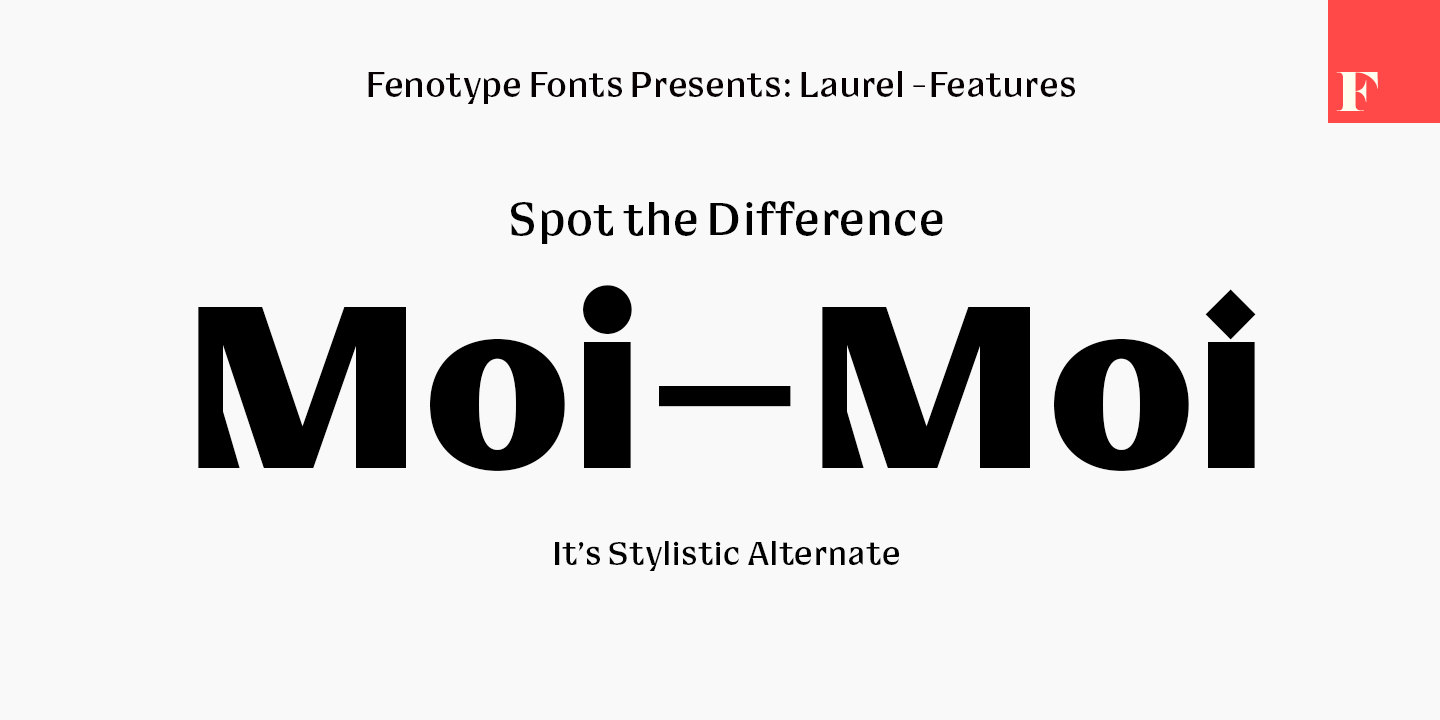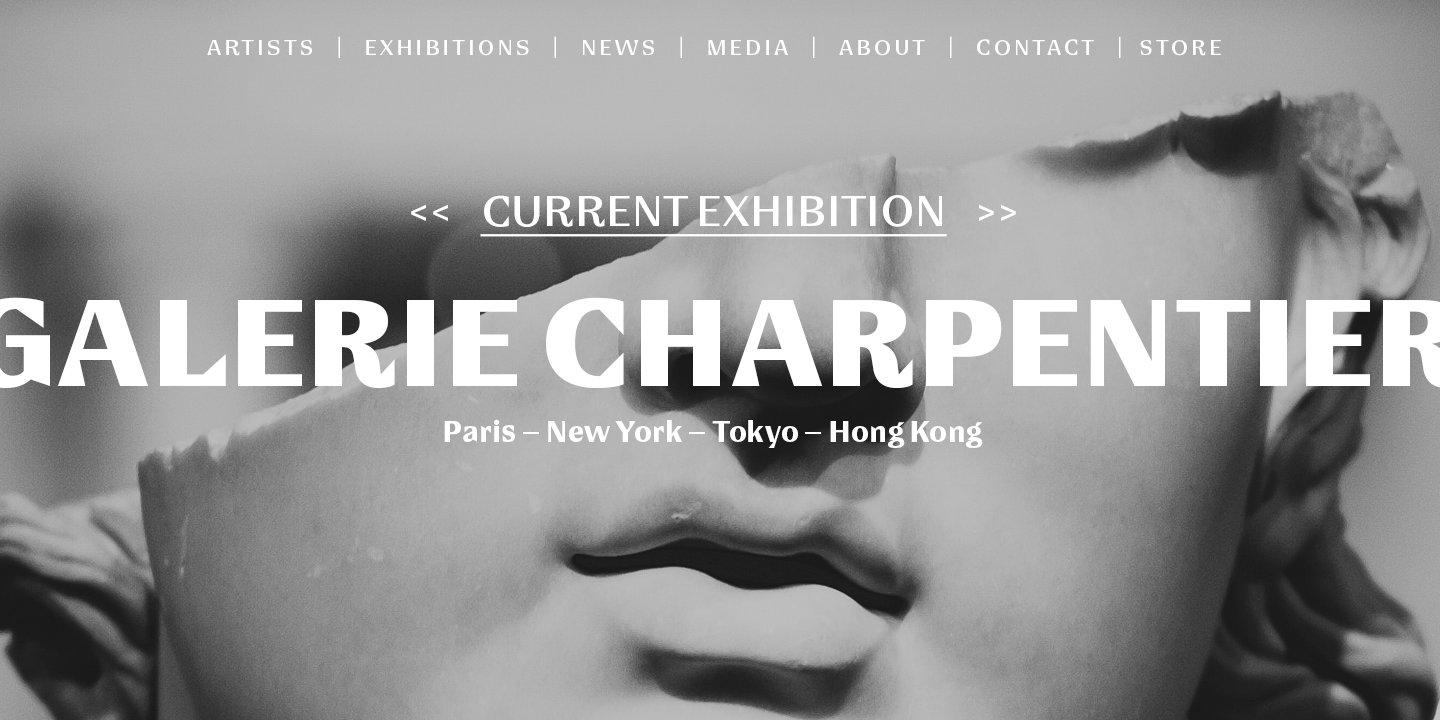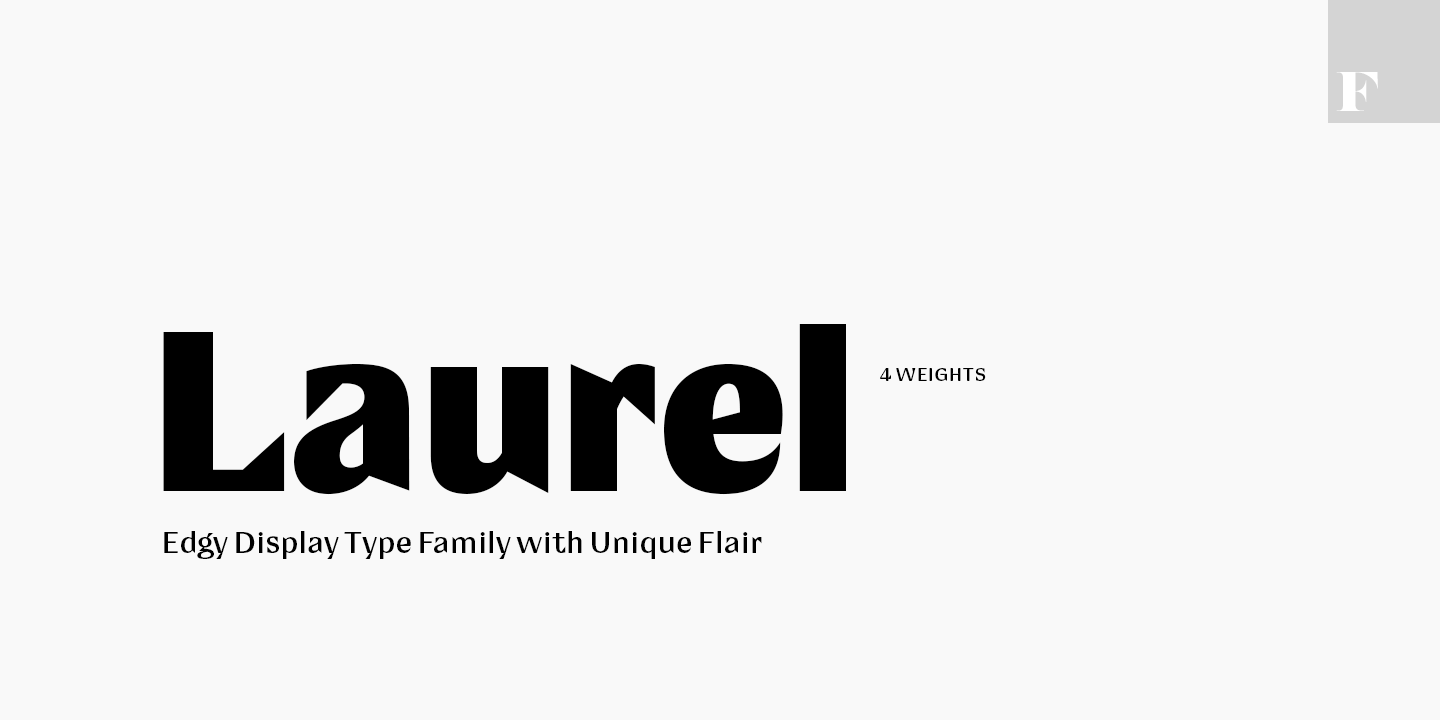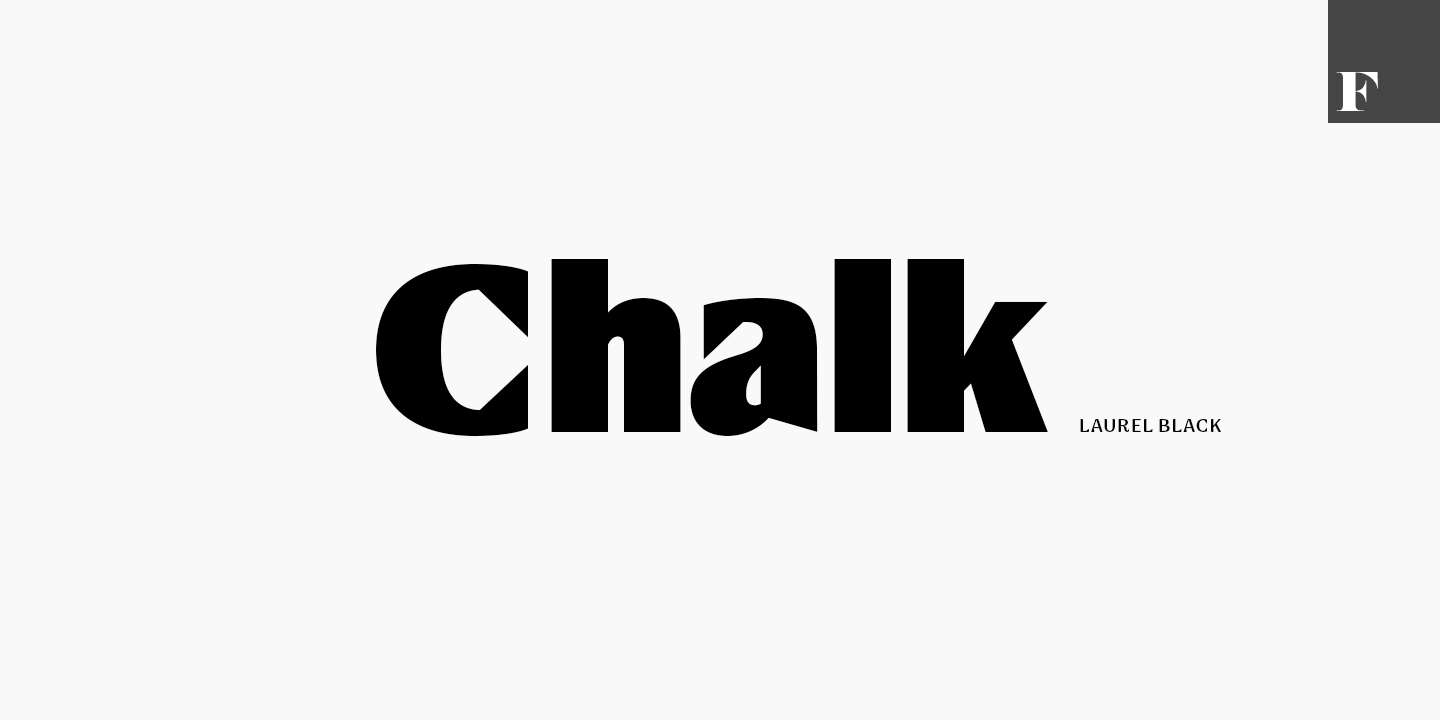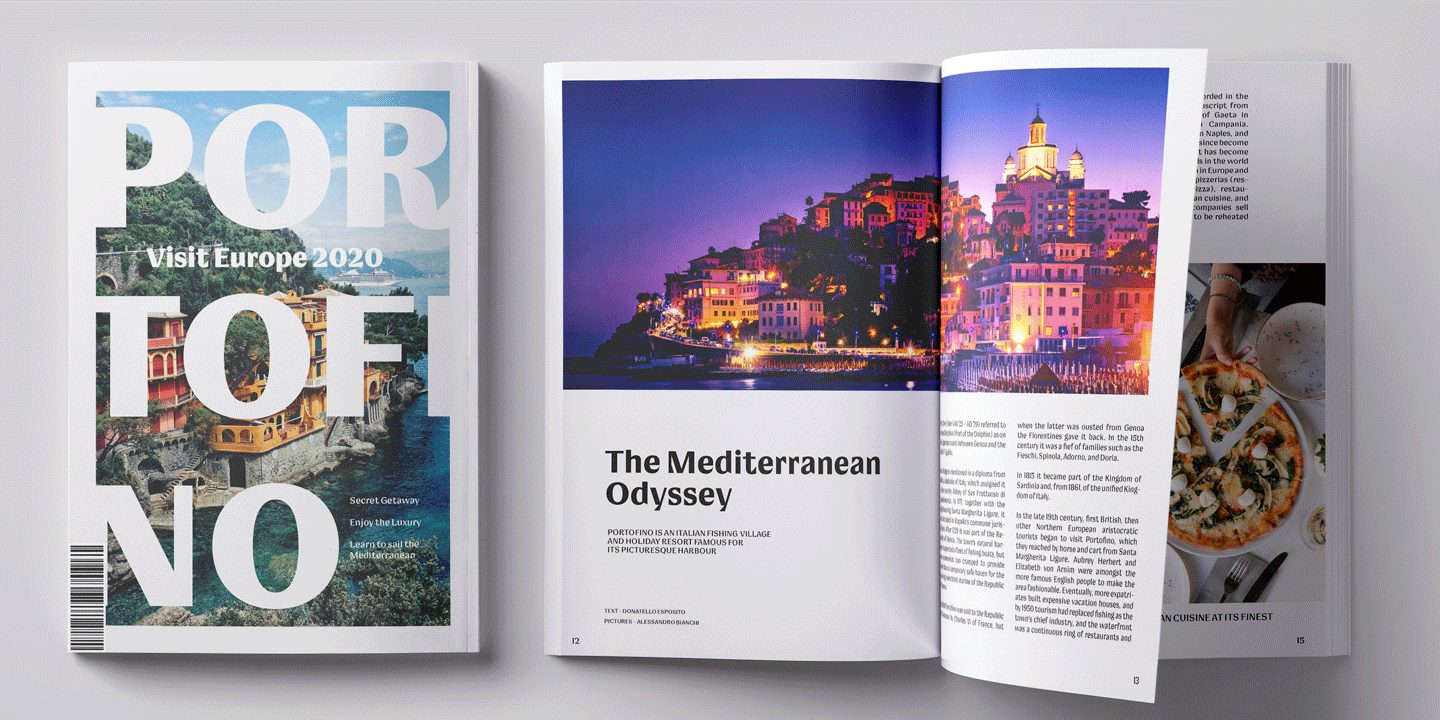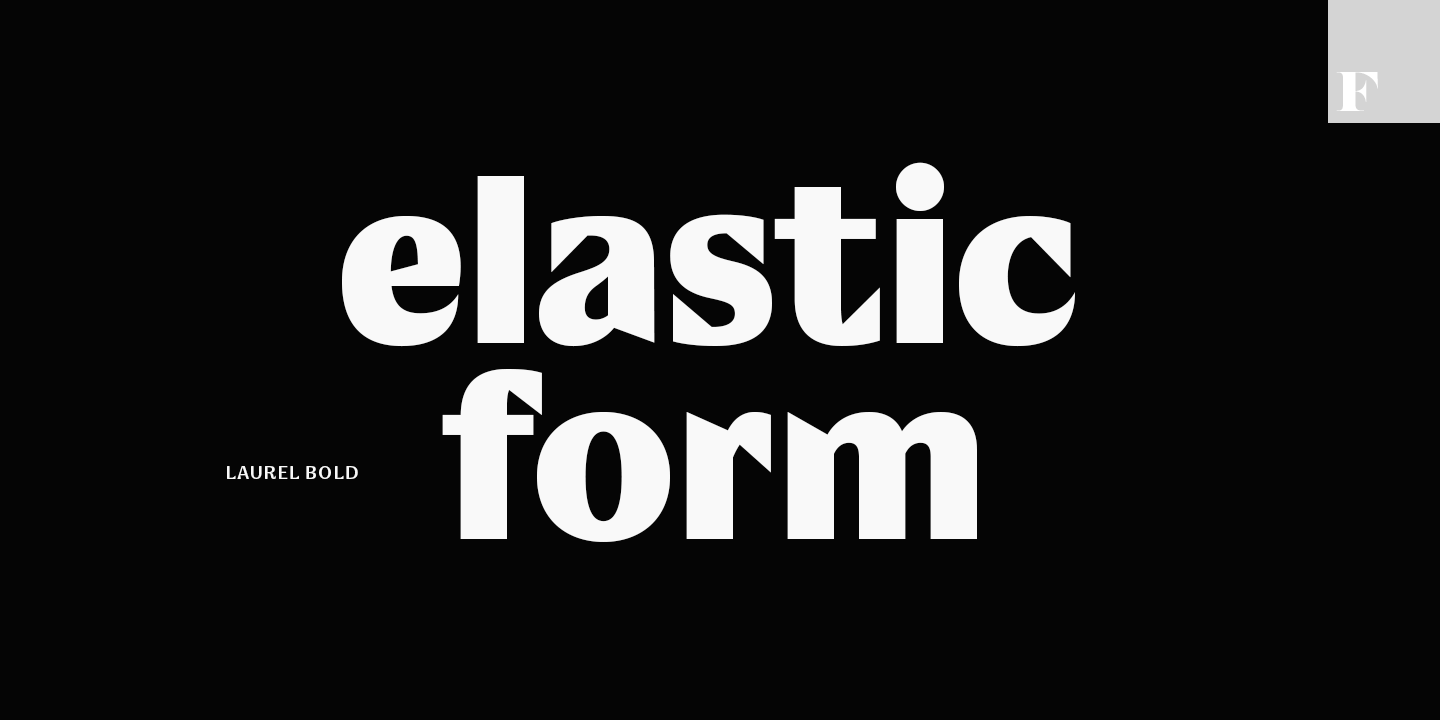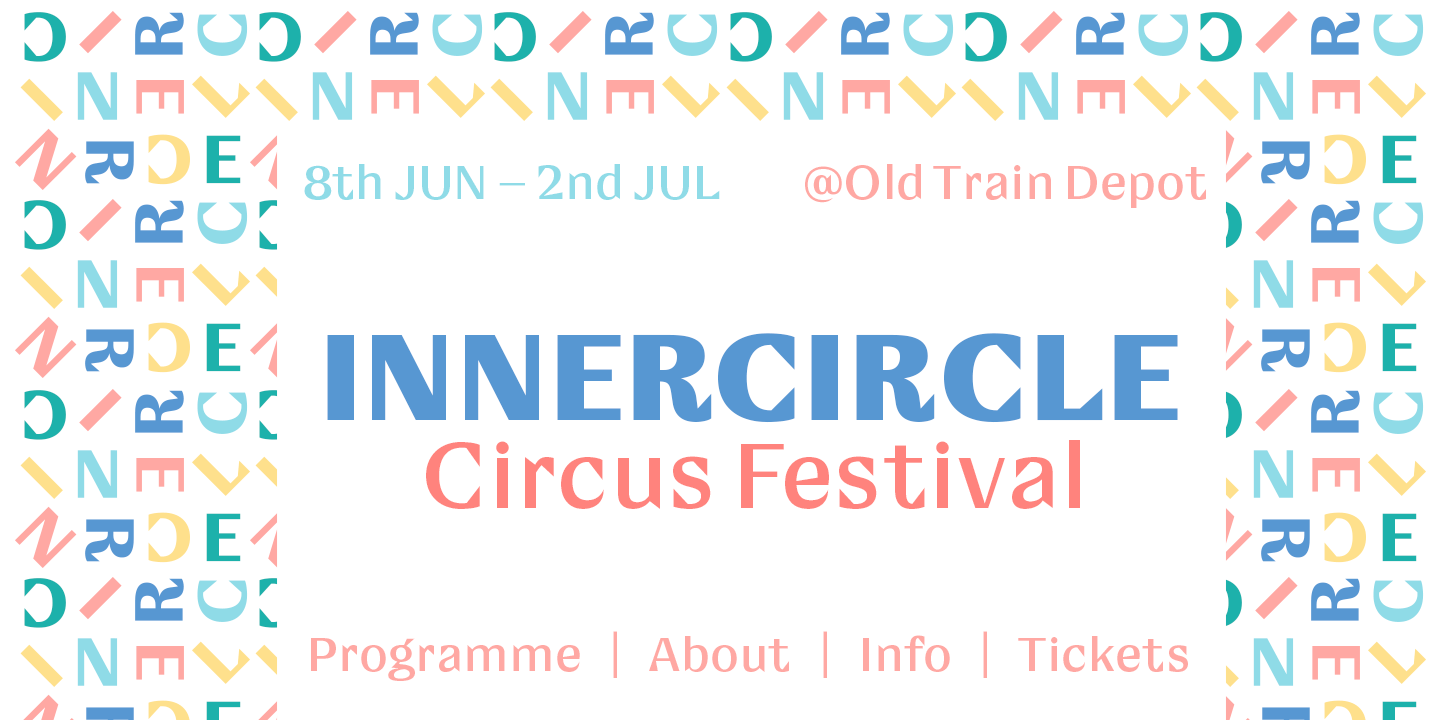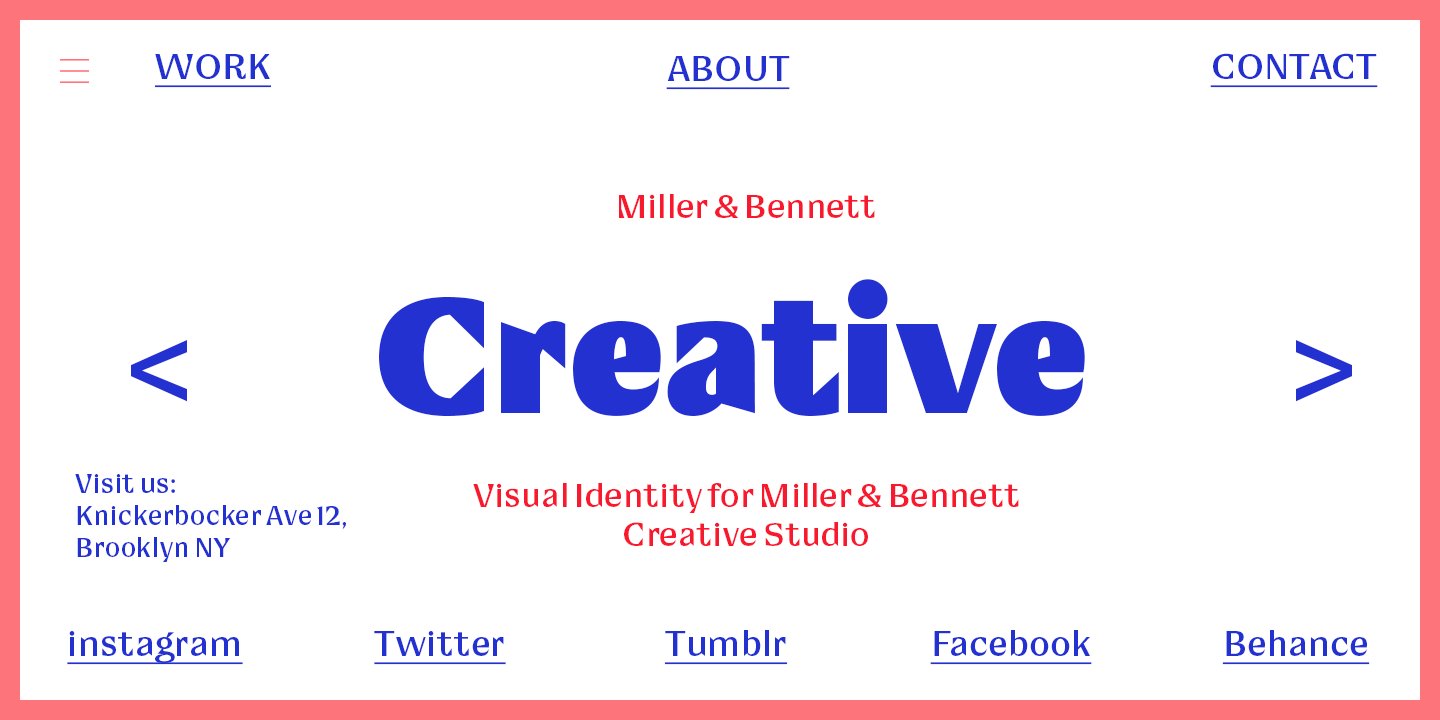
Laurel
Often in typography, a standout appeal is required ? but preferably without compromising on clarity and legibility. Laurel font family by Fenotype is where the best of both worlds meet ? an edgy display letter yet easily legible and appropriate for a wide range of use cases. Brand identities, packaging, posters or editorial ? choose Laurel for a touch of unique flair.